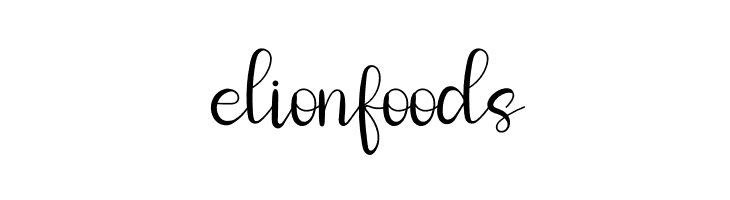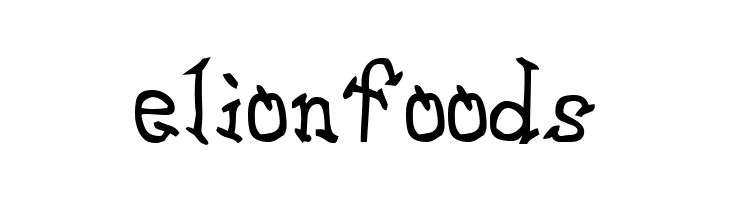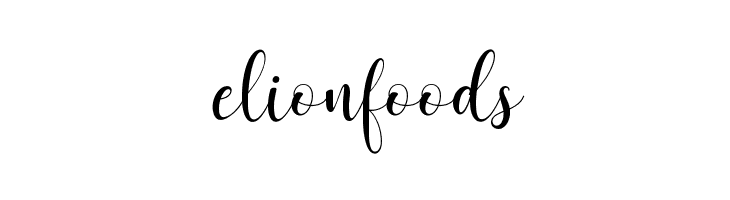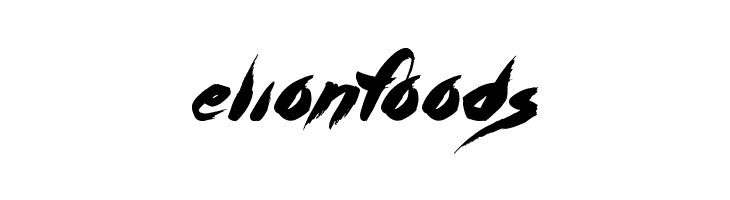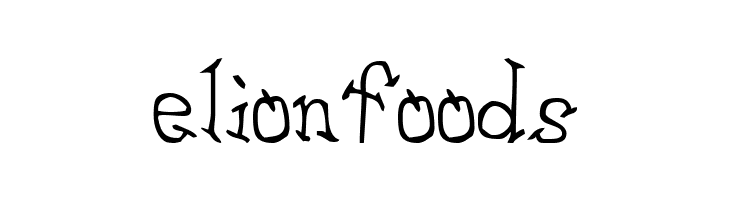
A modern serif font with sharp edges and balanced proportions.
A whimsical, decorative font with arrow-like serifs and playful character design.
A graceful and ornate script font with intricate loops and flourishes.
A modern, cursive script font with elegant loops and swashes.
A bold, expressive brush-style font with dynamic strokes and artistic flair.
A modern, geometric font with clean lines and uniform structure.